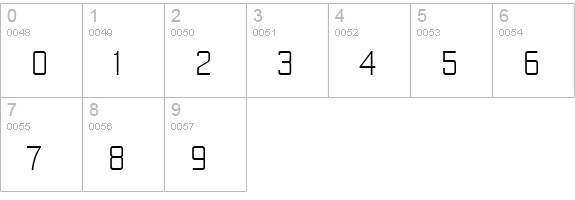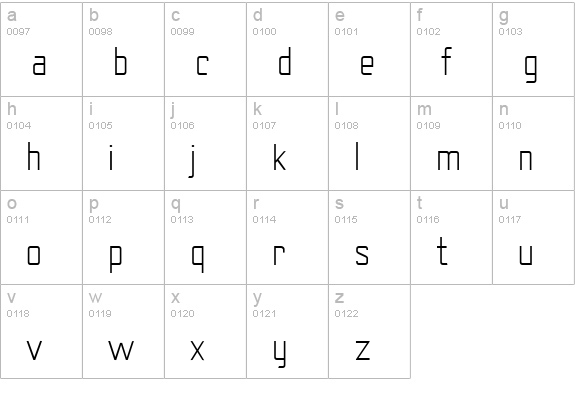
YearlingLite Font Details
YearlingLite is a modern and elegant font that exudes sophistication and style. With its clean lines and rounded edges, this typeface is perfect for a wide range of design projects, from branding to editorial design. The smooth and balanced letterforms of YearlingLite make it easy to read and highly versatile. What makes YearlingLite even more appealing is the fact that it is available for free download at FontsMarket.com. This means that you can elevate your designs without breaking the bank. Whether you're working on a personal project or a professional assignment, YearlingLite is a fantastic choice that will add a touch of class to your work. Download YearlingLite today and see the difference it can make in your design projects.